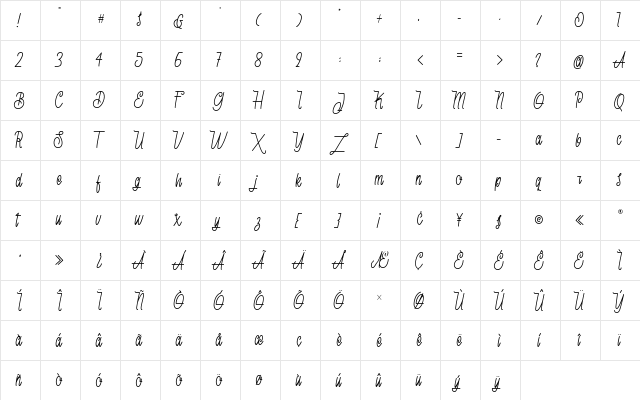
Skyline Regular
| Foundry | Typotopia |
| Designer | Typotopia |
Design Context for Skyline Typeface
Skyline takes a measured approach to typography — its balanced proportions and neutral character make it a reliable workhorse for both digital and print work.